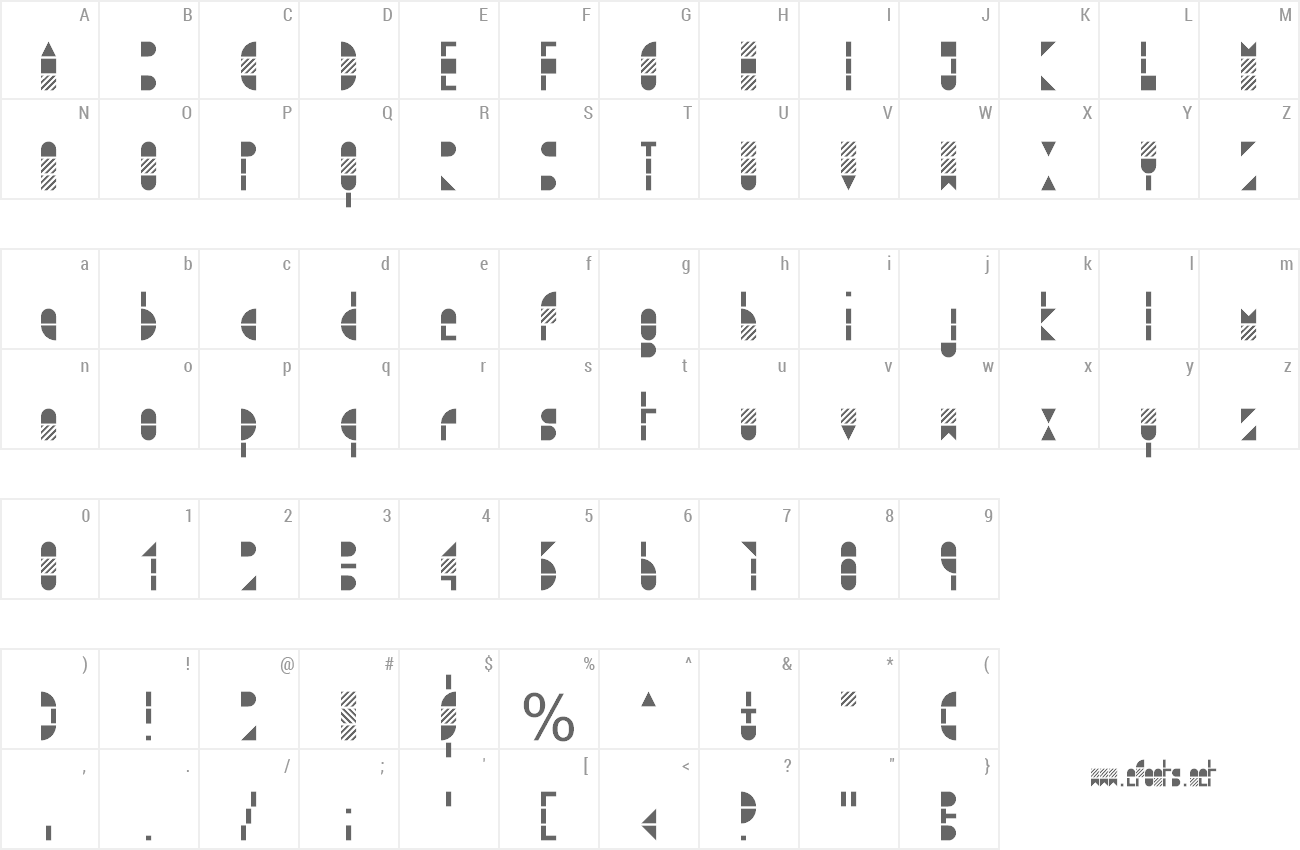
| Font name: | Modulo 3 |
| Author: | Zetafonts |
| Note by Zetafonts | |
Modulo 3 is a squared, sans serif font created on a module composed by three parts. It was born to experiment the possibility to use a font as a pattern for graphics. For commercial licence please visit our site: http://www.zetafonts.com/collection/95" target="_blank">more info and sample |